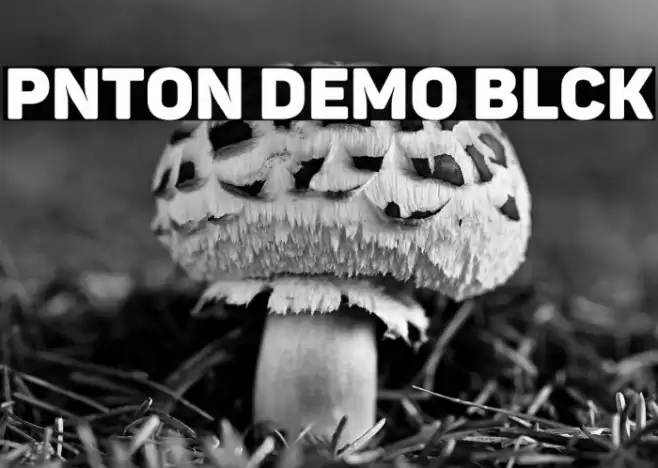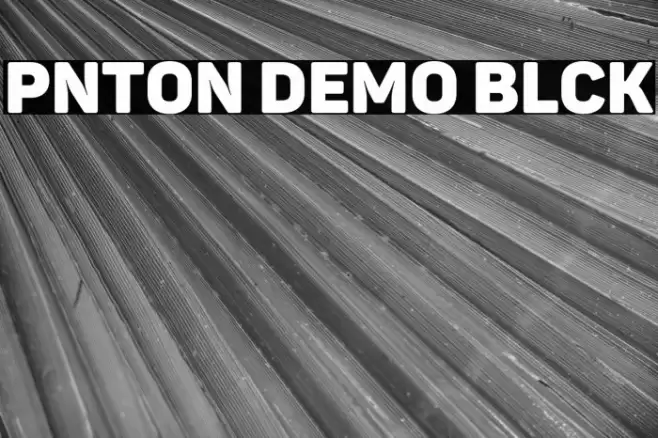
Panton Demo Black Font
Panton Demo Black Description
This font exhibits a bold and modern design, characterized by its thick, uniform strokes and clean lines. The uppercase and lowercase letters maintain a consistent width, contributing to a strong and impactful appearance. The numerals are equally bold, ensuring clarity and readability. The special characters are designed to match the overall boldness, making them stand out effectively. This font's geometric structure and lack of serifs give it a contemporary feel, suitable for various design applications.
A bold, modern sans-serif font with thick, uniform strokes from Uncategorized fonts.
- Proposed Projects: Ideal for branding, headlines, posters, and digital media where a strong, impactful presence is desired.